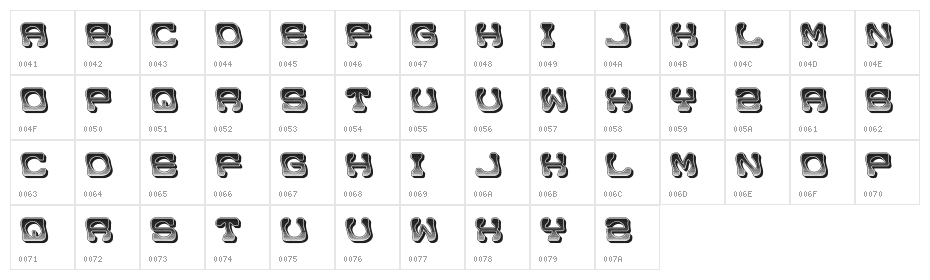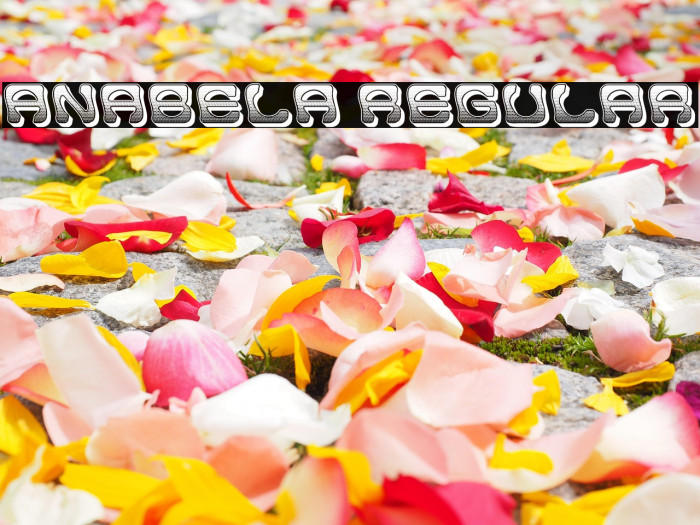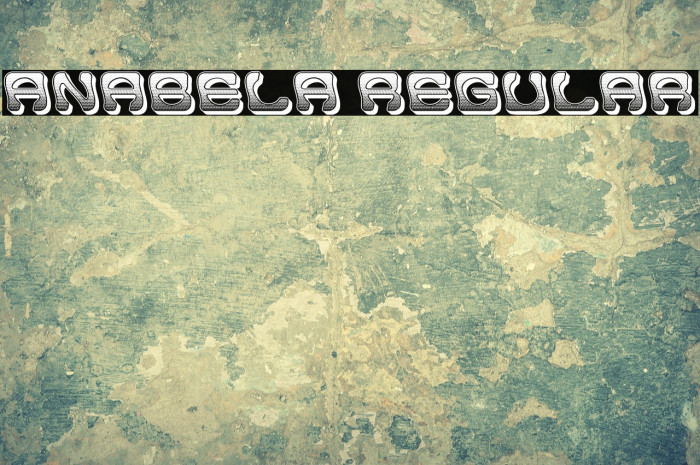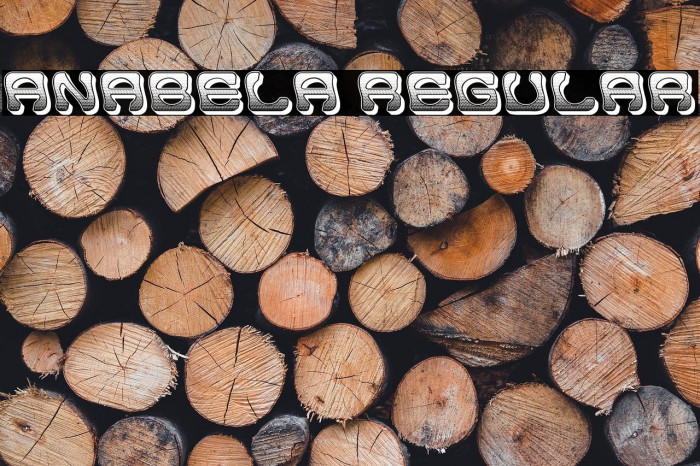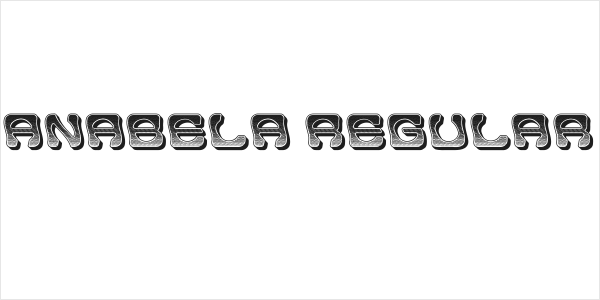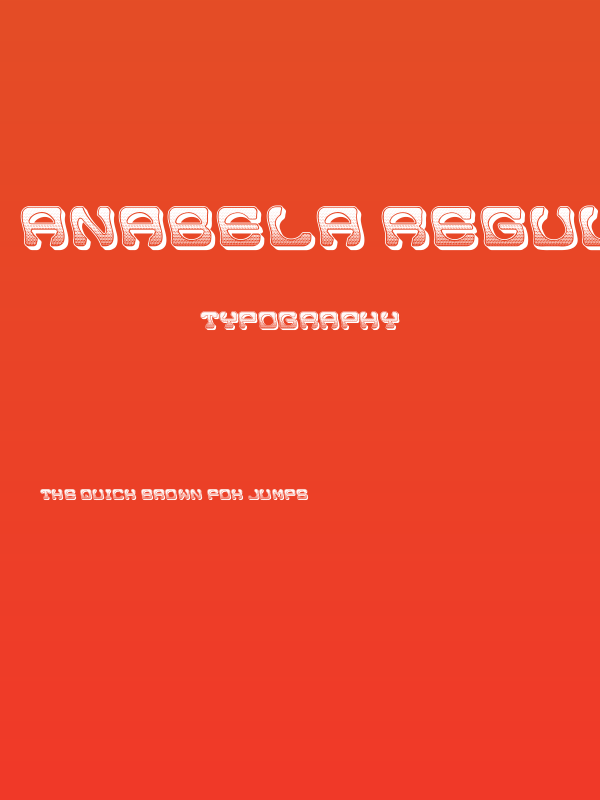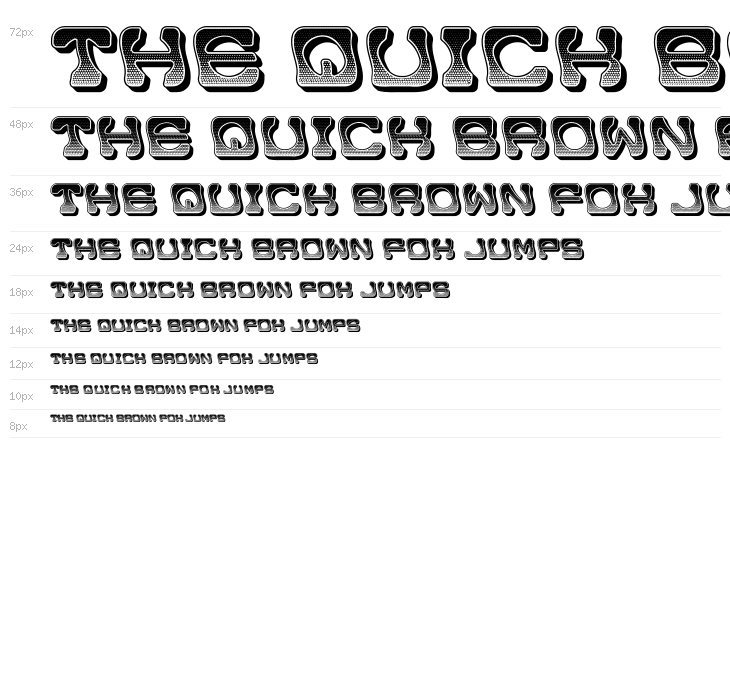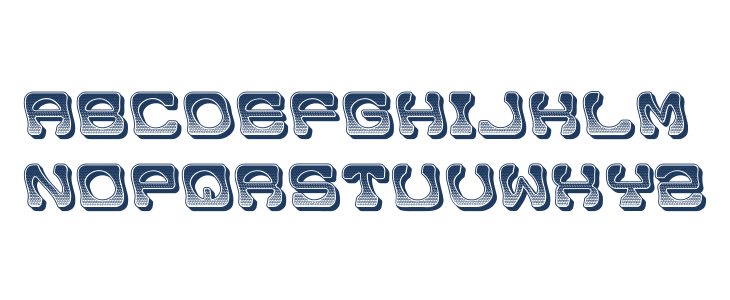
Anabela Regular Font
Anabela Regular Description
This font features a bold, decorative style with a unique 3D effect created by intricate line work and shading. The characters are uppercase and have a playful yet structured appearance, making them stand out with their shadowed, layered design. The font's design is reminiscent of vintage signage or retro posters, offering a sense of depth and dimension. The letters are evenly spaced, maintaining a consistent flow across the text. The boldness of the font ensures high visibility, making it suitable for eye-catching designs.
| Proposed Projects | Ideal for retro-themed posters, vintage signage, branding, and eye-catching headlines. |